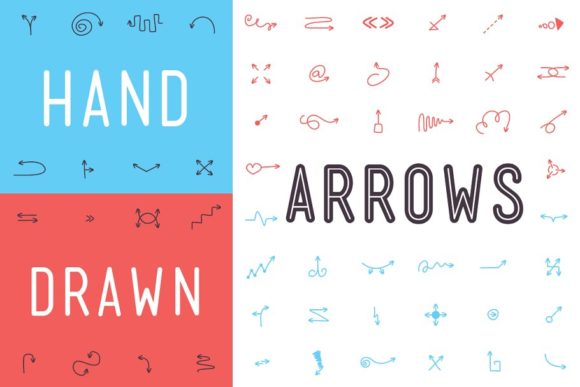
Dive into the realm of creativity and expression with Hand Drawn Arrows, the extraordinary dingbats font that will captivate your imagination and elevate your designs. This distinctive font, meticulously crafted by the experts at HipFonts, is a treasure trove of quirky arrows, each one infused with a human touch that adds a touch of charm and authenticity to your projects.
Imagine the possibilities: effortlessly adorn your designs with whimsical arrows that point the way to adventure, highlight key elements with artistic flair, or create captivating borders and frames that draw the eye and ignite curiosity. Hand Drawn Arrows is the perfect choice for designers, artists, and anyone seeking a font that sparks creativity and adds a personal touch to their work.
With Hand Drawn Arrows, the possibilities are endless. Let your imagination soar as you explore the boundless applications of this versatile font. Whether you're working on a website, a poster, or a social media campaign, Hand Drawn Arrows will elevate your designs and leave a lasting impression on your audience.
Don't settle for ordinary fonts that blend into the background. Choose Hand Drawn Arrows and unleash the power of creativity. Embrace the unique and extraordinary, and watch as your designs transform into captivating works of art that resonate with your audience.